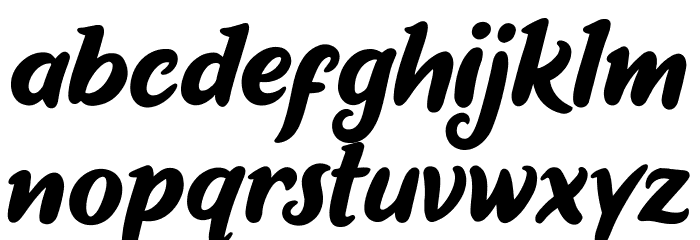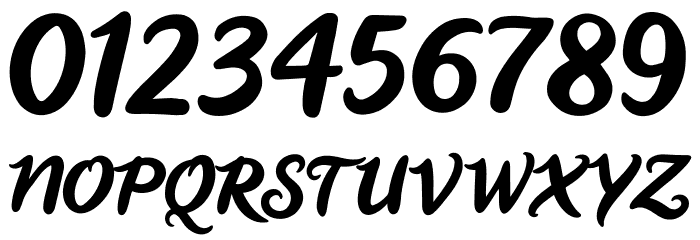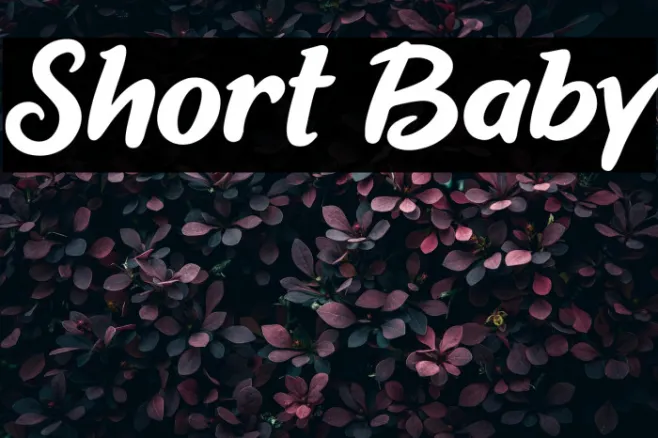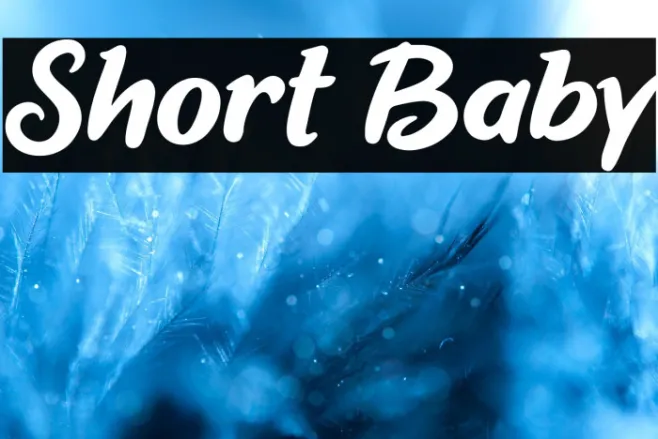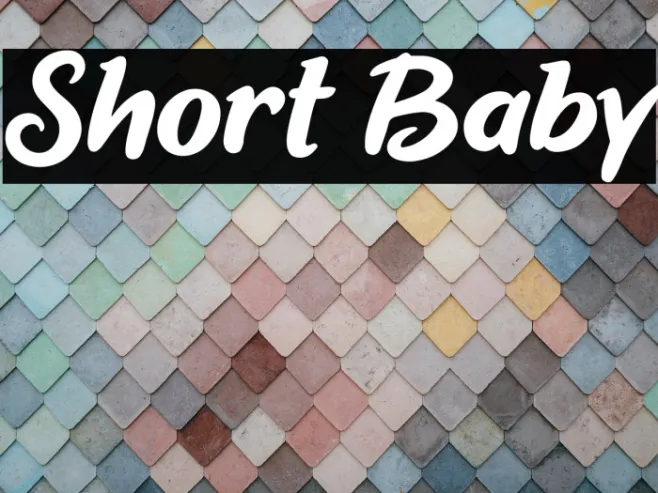
Short Baby Font
This font features a bold and flowing script style, characterized by its elegant and smooth curves. The uppercase letters are slightly more ornate, with flourishes that add a touch of sophistication. The lowercase letters maintain a consistent flow, making it suitable for both formal and casual designs. The numerals are clear and bold, ensuring readability. The overall appearance is dynamic and lively, with a sense of movement that captures attention. This font is versatile, suitable for various design projects that require a touch of elegance and flair.
A bold, flowing script font with elegant curves and dynamic style.
- Font: Short Baby
- Proposed Projects: Ideal for wedding invitations, greeting cards, branding, and logo design.
- Category: Script
- Use Case: Logos, Headlines, Invitations